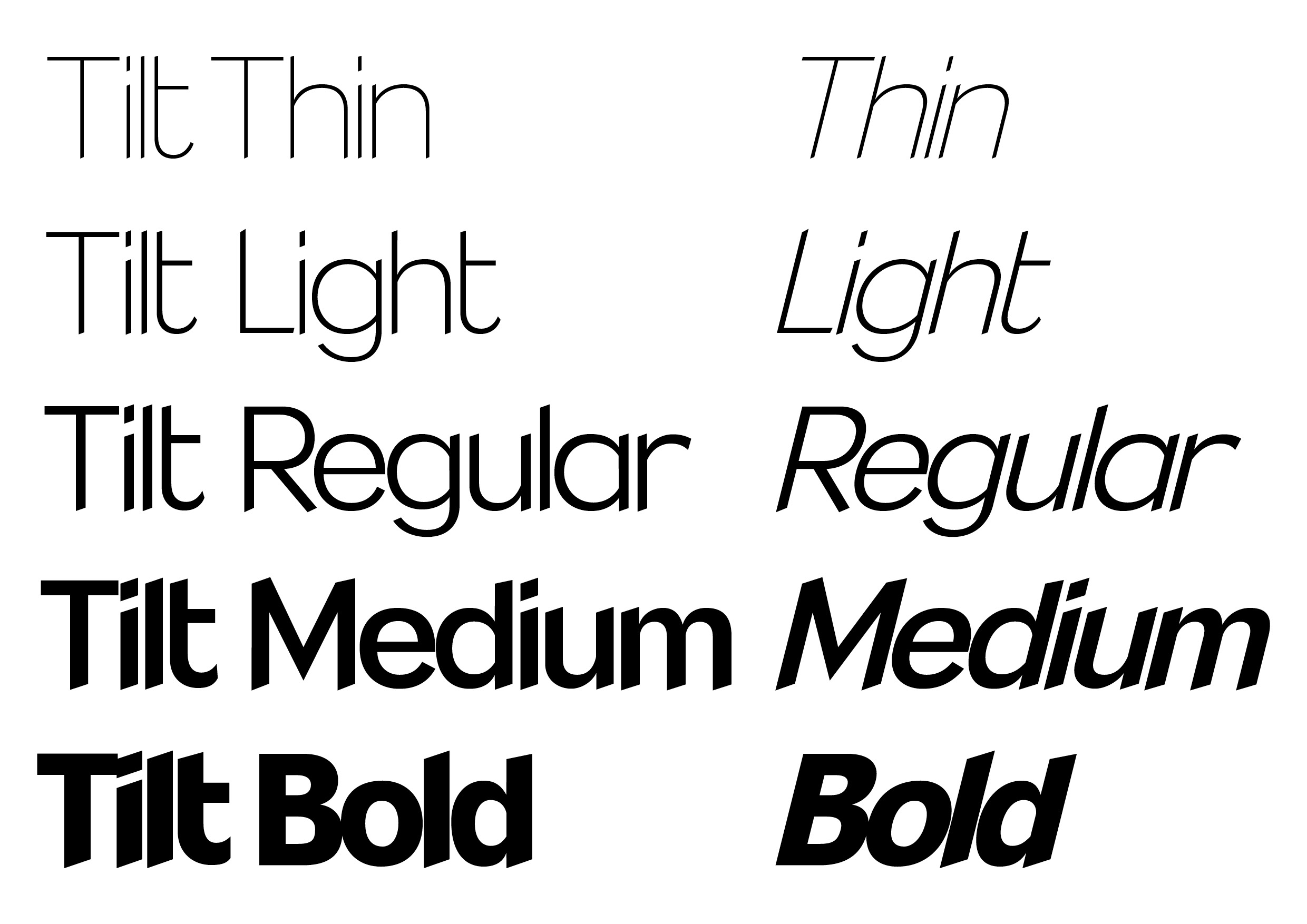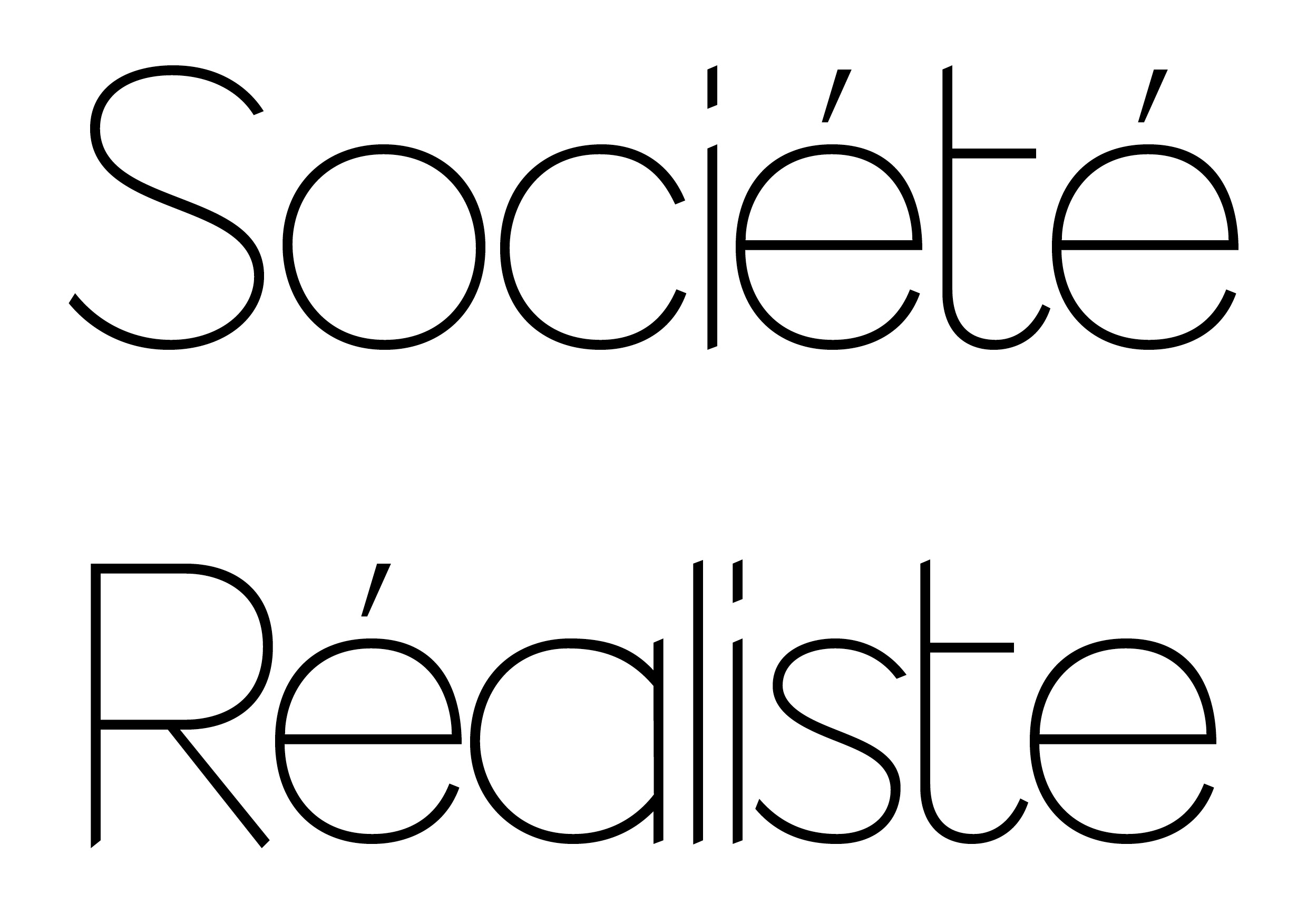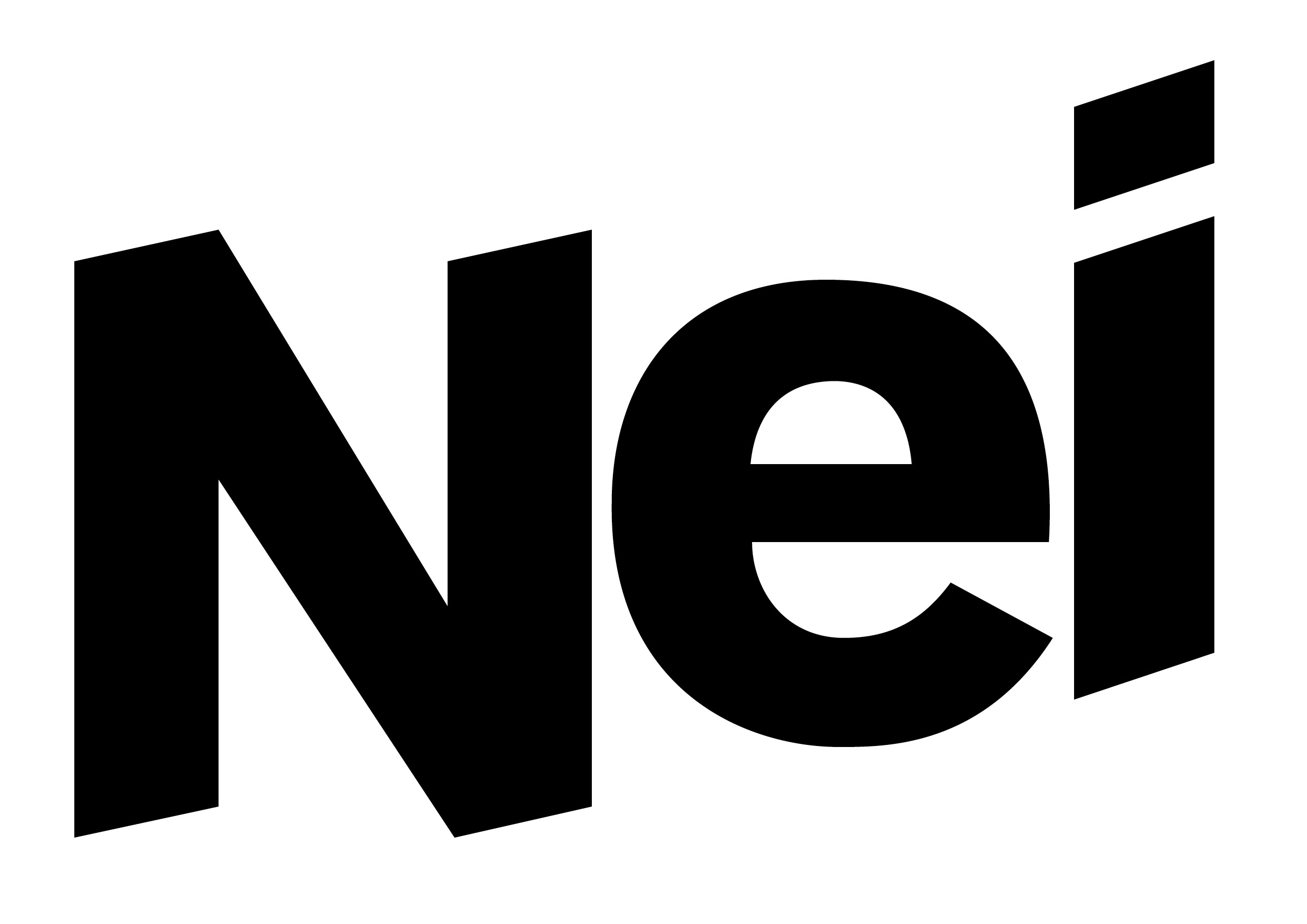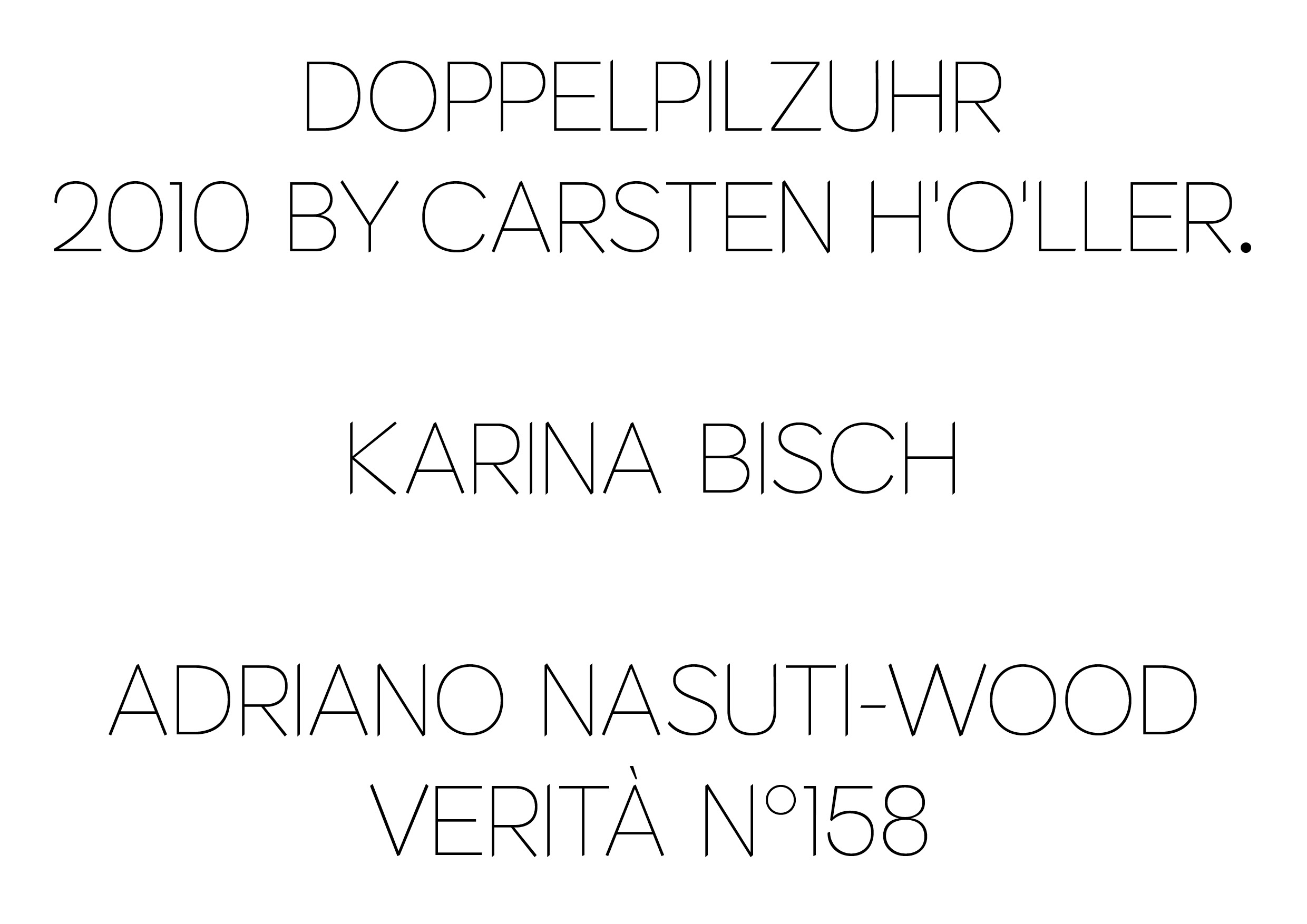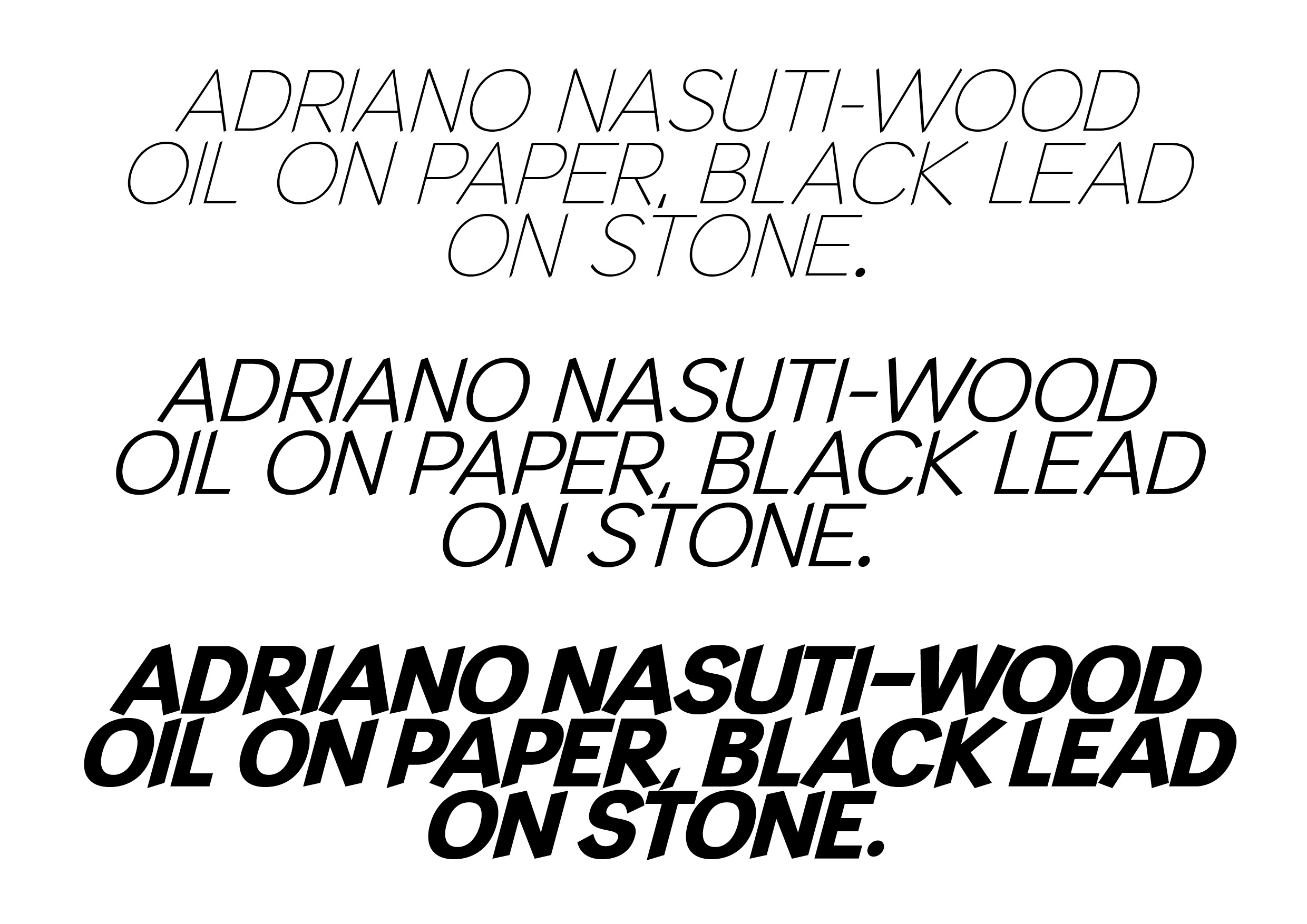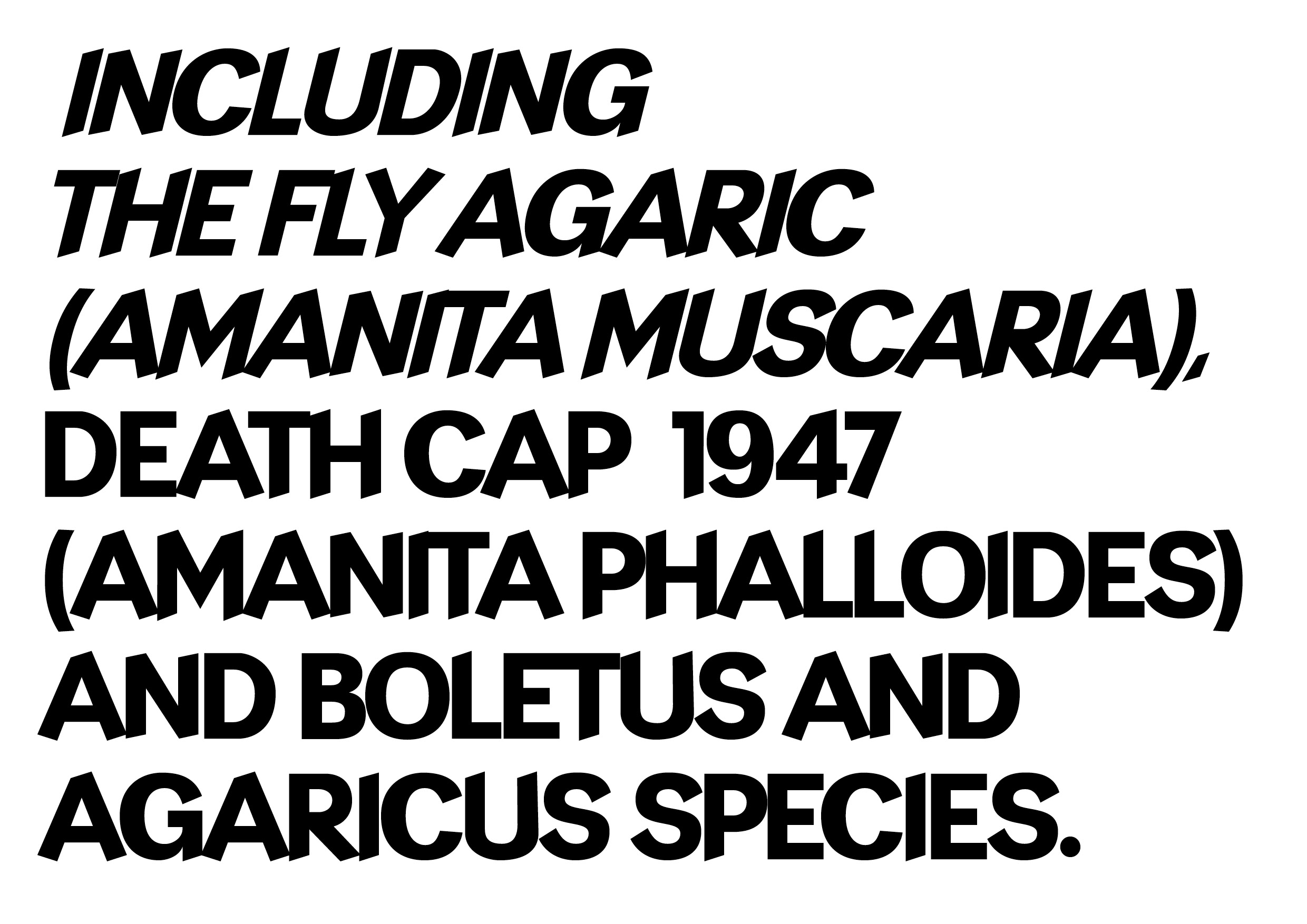
Tilt
Not everything needs to stand up straight. Tilt began with sign painting and the movement that comes from letters made by hand. Instead of trying to reproduce every irregularity of a painted sign we became interested in one simple thing. The angle. Each style in Tilt leans differently and that small change can completely alter the feeling of a word. A gentle tilt feels relaxed. Push it further and suddenly the same word has somewhere to be. Tilt was made for moments when typography needs a little movement. Give it a title or a name and see which way it wants to go.
Script
Tilt Script specimen